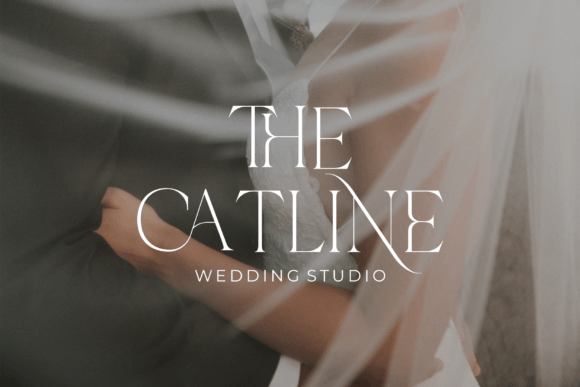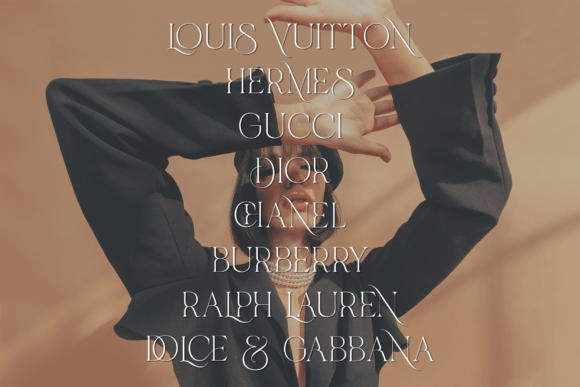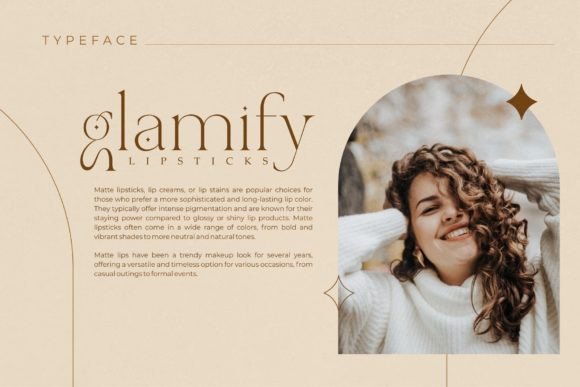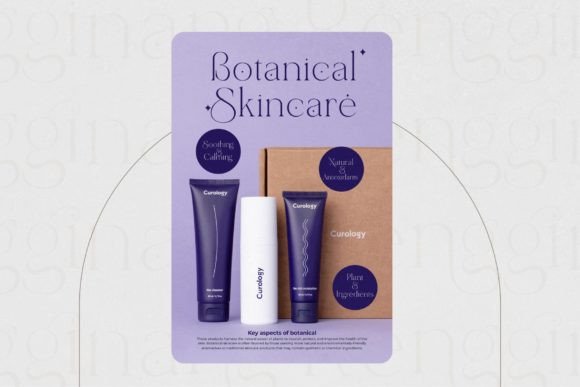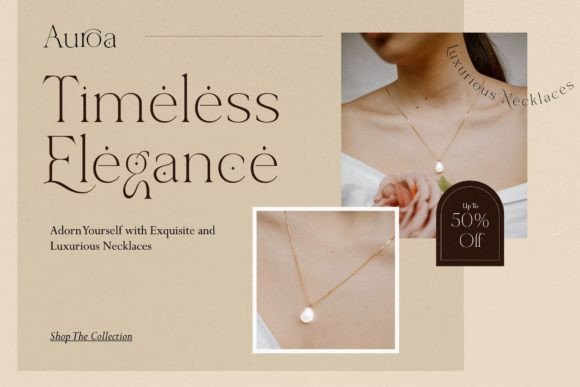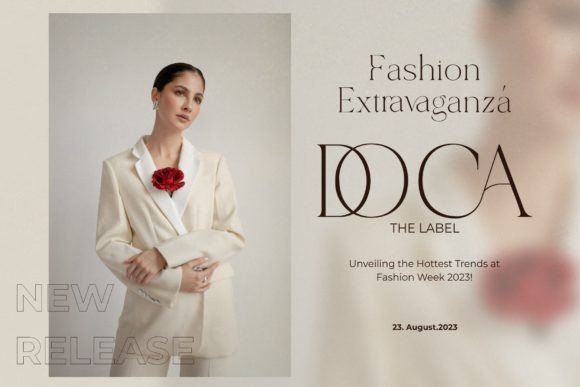
Introduction to Luxca Font
Have you ever stared at a blank canvas, searching for the perfect design element to bring your creative project to life? That’s exactly where I was when I stumbled upon the Luxca Font. Its sleek, modern aesthetic instantly caught my eye, and I knew I had to dive deeper. This stunning serif typeface has been a game-changer for designers like me, offering a unique blend of contemporary sophistication and timeless elegance.
Whether you’re working on a high-end branding project or a premium digital product, the Luxca Font is an invaluable design resource. Its clean lines, precise letterforms, and luxurious feel make it perfect for applications where quality and refinement are paramount. With its transparent background and versatile styling options, you can use it to create stunning visual effects and add an air of opulence to your work.
Key Features of Luxca Font
- Comes with a transparent background, making it easy to integrate into various design elements.
- Features a unique and modern design aesthetic, perfect for adding a touch of sophistication to any creative project.
Honest Review: Luxca Font
I recently stumbled upon the Luxca Font, and I must say, it’s been a game-changer for my creative project. The high quality and unique design make it a fantastic addition to my design resource collection.
What works well is the font’s versatility – it’s perfect for both digital and print materials. The transparent background allows for seamless integration with any design, and the free download option is a major plus. ✨ The font’s clean and modern aesthetic makes it an excellent choice for a wide range of applications.
Here are some of the key features that caught my attention:
- High-quality design with a unique twist
- Perfect for digital and print materials
⚠️ One limitation I’ve noticed is that the font may not be suitable for all types of designs. For instance, it may not be the best choice for highly decorative or complex projects. However, for most creative projects, the Luxca Font is an excellent choice.
Overall, I’m thoroughly impressed with the Luxca Font. It’s a fantastic addition to any design resource collection, and I highly recommend it to fellow designers.
Tips for Getting the Most Out of Luxca Font
Use Luxca Font in combination with a transparent background to create visually appealing designs. Experiment with different font sizes and colors to add depth and interest to your design.
Luxca Font is ideal for creating logos, social media graphics, and presentations. Its high-quality design makes it perfect for any creative project that requires a professional touch.